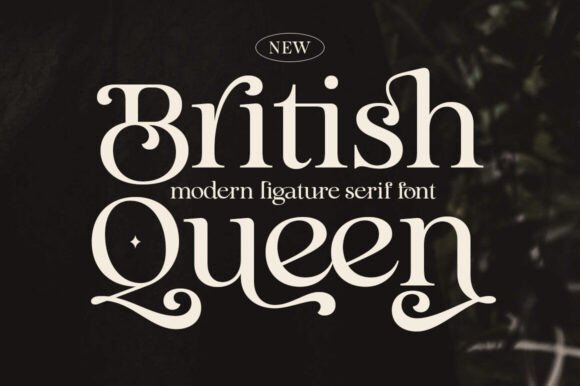
Introducing British Queen: A Timeless Classic-Modern Ligature Font
Are you on the hunt for a font that exudes elegance, sophistication, and a touch of classic charm? Look no further than the British Queen font, a stunning typeface that seamlessly blends traditional and modern elements. This beautiful font is perfect for designers, crafters, and anyone looking to add a touch of refinement to their branding, logos, invitations, and more.
The Beauty of Ligatures
What sets the British Queen font apart is its use of ligatures, which connect letters in a flowing, cursive-like manner. This creates a sense of fluidity and continuity, making it perfect for words and phrases that need to be read in a single, sweeping motion. With 75 ligatures to choose from, you’ll have ample opportunity to experiment and find the perfect combination to suit your design needs.
A Wealth of Alternates
But that’s not all – the British Queen font also boasts an impressive 100 alternates for upper and lower case letters, as well as numbers and punctuation marks. This level of versatility means you can tailor your text to suit any style or mood, from formal and traditional to playful and whimsical. Whether you’re designing a logo, invitation, or business card, the British Queen font has got you covered.
Perfect for a Range of Applications
So, what can you use the British Queen font for? The possibilities are endless! Here are just a few ideas to get you started:
- Branding: Create a lasting impression with a custom logo that showcases the elegance and sophistication of the British Queen font.
- Logos: Use the font to create a unique and memorable logo that sets your business or brand apart.
- Invitations: Add a touch of classic charm to your wedding invitations, party invites, or other special occasion stationery.
- Letterheads: Elevate your business correspondence with a beautifully designed letterhead that features the British Queen font.
Why Choose the British Queen Font?
With so many fonts on the market, why choose the British Queen font? Here are just a few reasons why this typeface stands out:
- Elegance: The British Queen font exudes classic elegance and sophistication, making it perfect for high-end brands and special occasions.
- Versatility: With 75 ligatures and 100 alternates, this font offers a level of versatility that’s hard to find elsewhere.
- Easy to Read: Despite its ornate appearance, the British Queen font is surprisingly easy to read, making it perfect for body text and longer passages.
Tips for Using the British Queen Font
To get the most out of the British Queen font, here are a few tips to keep in mind:
- Experiment with Ligatures: Don’t be afraid to try out different ligatures to find the one that works best for your design.
- Mix and Match: Combine the British Queen font with other fonts to create a unique and eye-catching design.
- Pay Attention to Spacing: Make sure to adjust the spacing between letters and words to ensure your text flows smoothly and evenly.
In conclusion, the British Queen font is a timeless classic-modern ligature font that’s perfect for designers, crafters, and anyone looking to add a touch of elegance and sophistication to their designs. With its beautiful ligatures, versatile alternates, and easy-to-read design, this font is sure to become a staple in your typography collection. So why wait? Download the British Queen font today and start creating stunning designs that will leave a lasting impression!